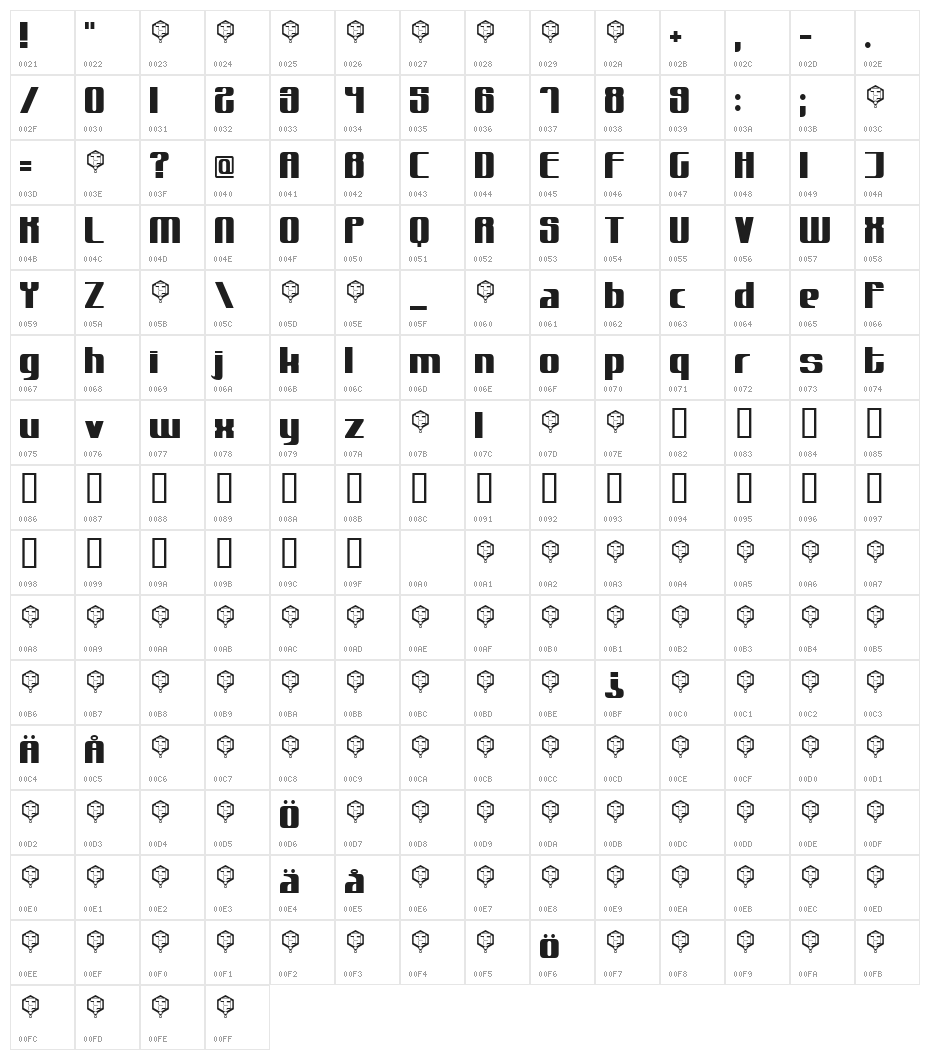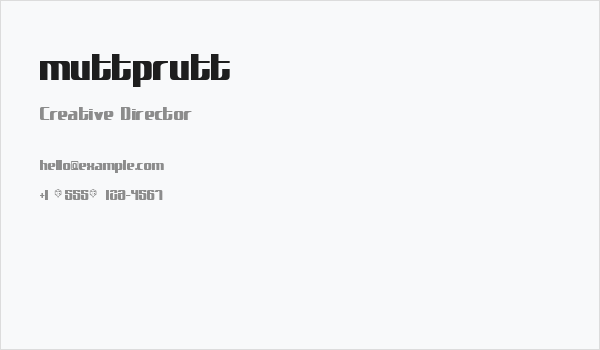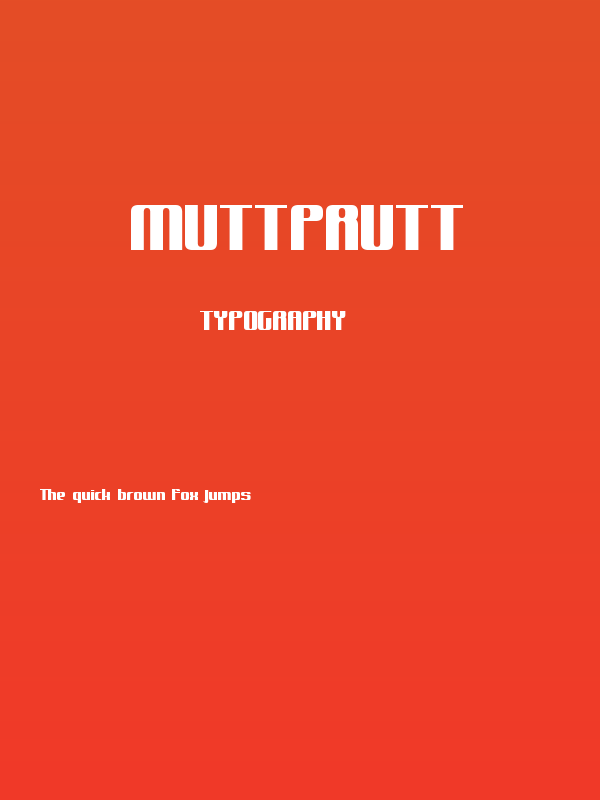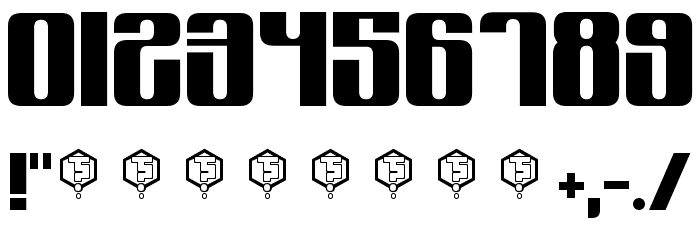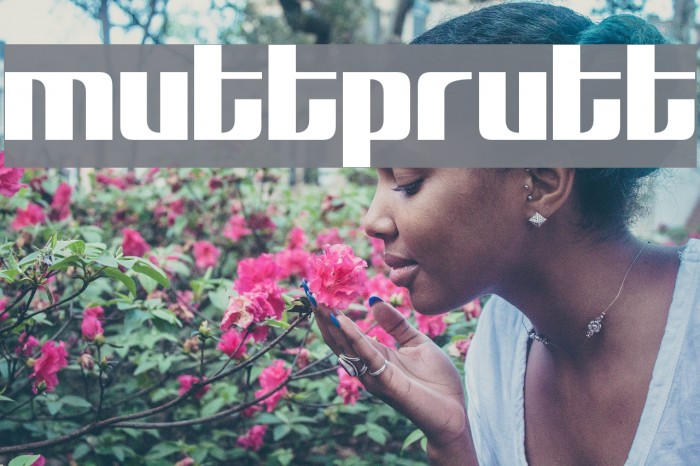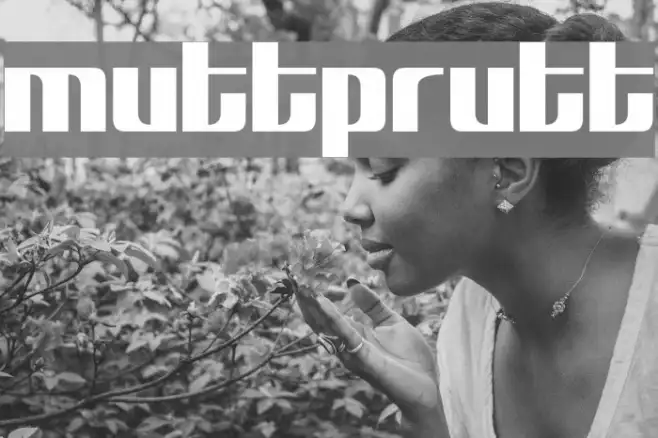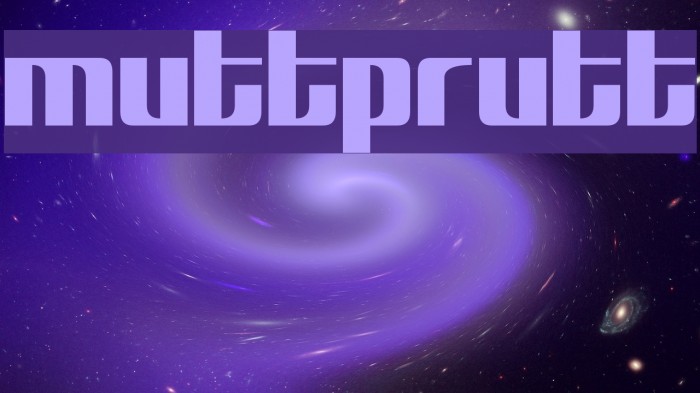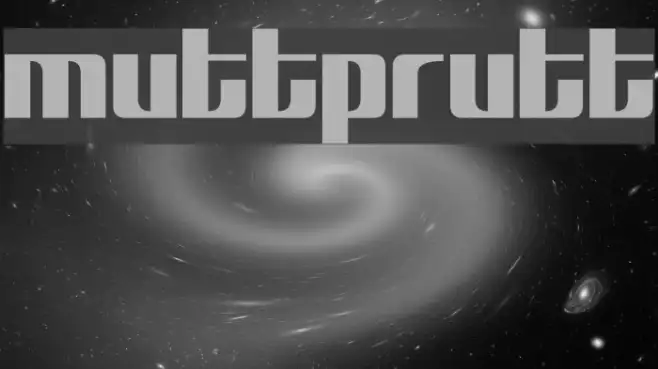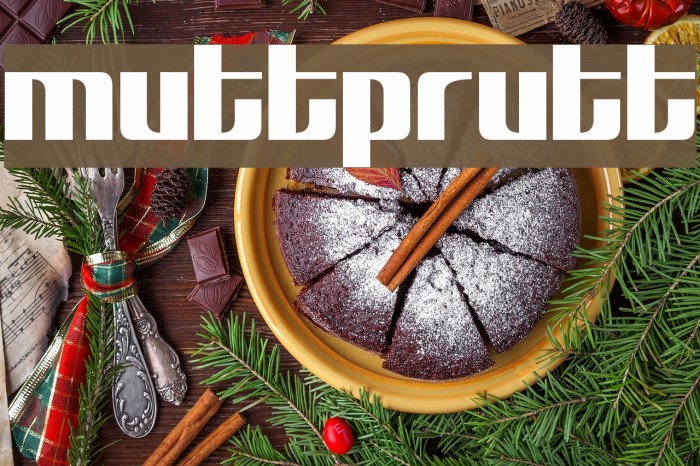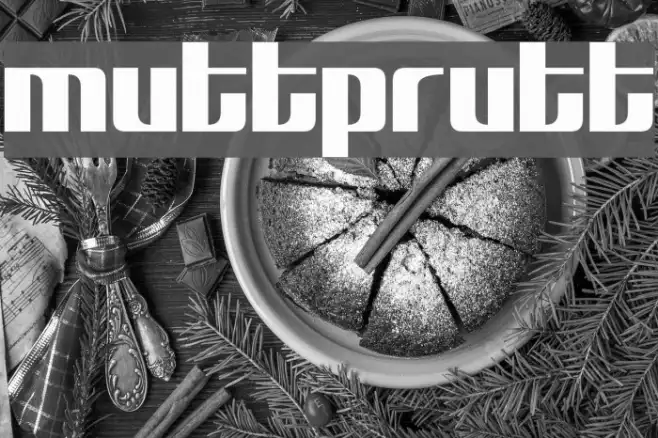
muttprutt Font
muttprutt Description
This font features a bold and geometric design with a strong presence. The uppercase letters are characterized by their blocky and angular shapes, creating a sense of stability and strength. The lowercase letters maintain a similar geometric style, offering a cohesive look throughout the typeface. The numerals are distinct and easily readable, with a unique design that complements the overall aesthetic. Special characters are creatively integrated, adding a touch of uniqueness to the font. The consistent stroke width across all characters provides a uniform appearance, making it suitable for impactful and attention-grabbing designs.
| Proposed Projects | Ideal for posters, logos, branding, and headlines that require a bold statement. |